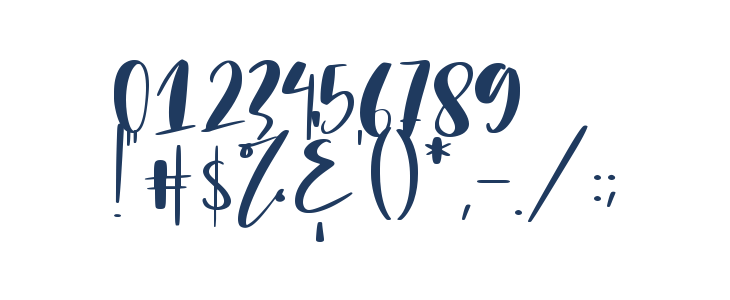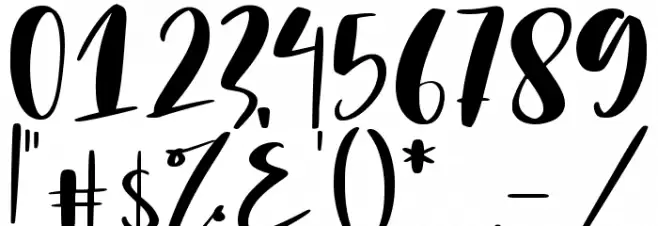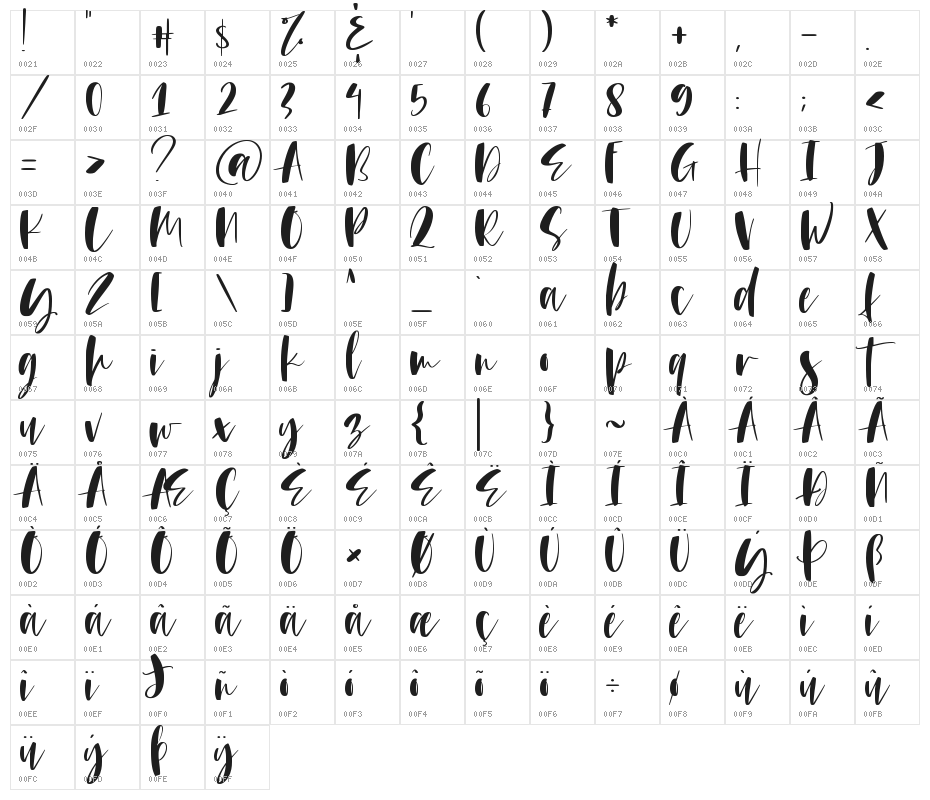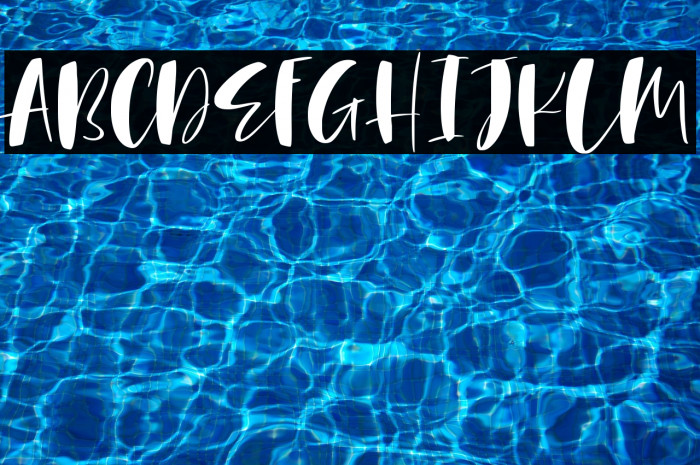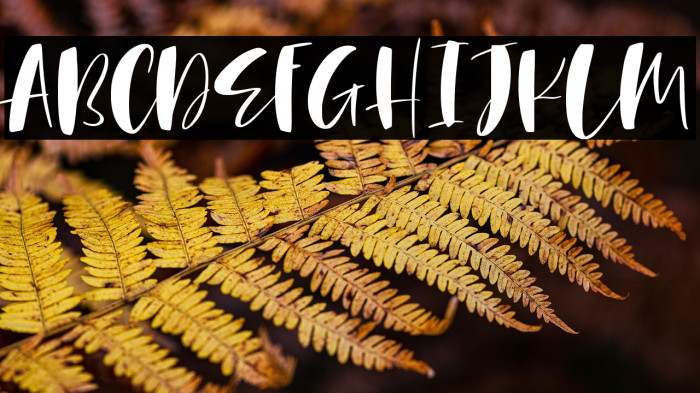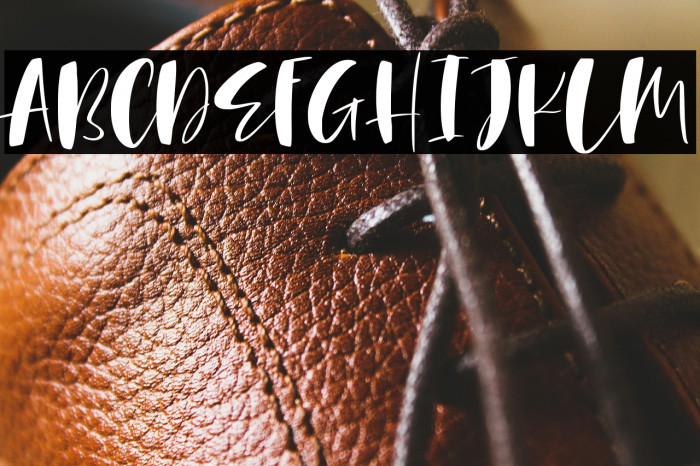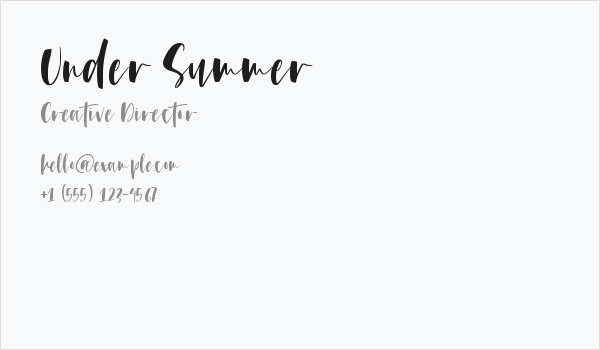
Under Summer Font
Under Summer Description
This font exudes a lively and energetic vibe with its bold, sweeping strokes and dynamic curves. The letters are crafted with a handwritten style, giving them a personal and informal touch. The uppercase characters are tall and slightly slanted, while the lowercase letters maintain a consistent flow, enhancing readability. Numbers and special characters are equally expressive, maintaining the font's overall playful aesthetic. The strokes vary in thickness, adding a sense of movement and rhythm. This font is perfect for projects that require a touch of creativity and personality.
A bold, handwritten font with dynamic strokes and a lively style from Uncategorized fonts.
- Font: Under Summer
- Proposed Projects: Ideal for greeting cards, invitations, posters, and branding materials that seek a personal and creative touch.